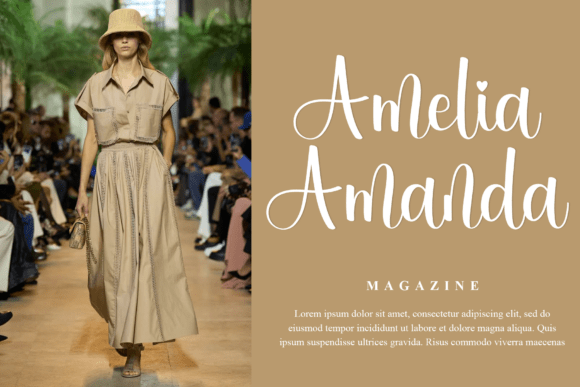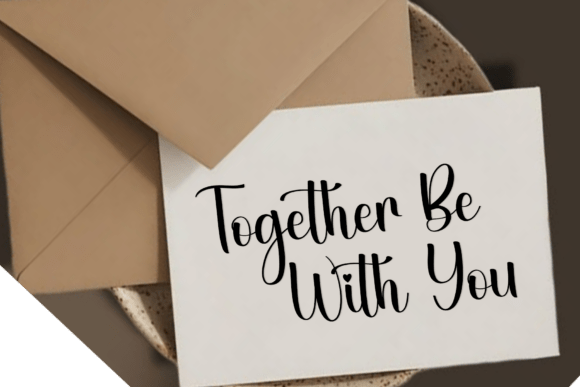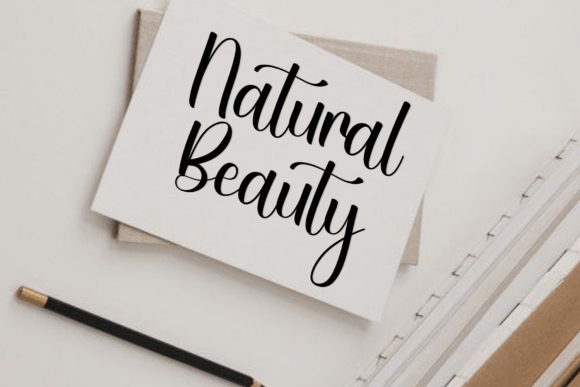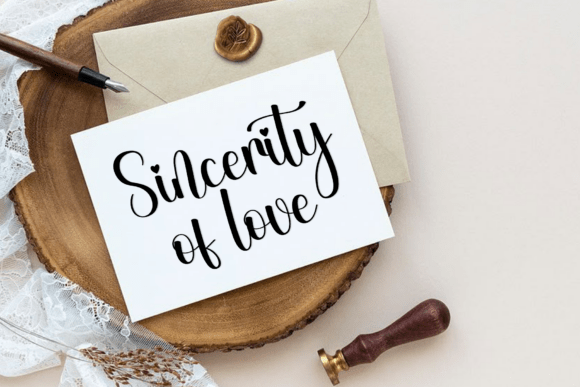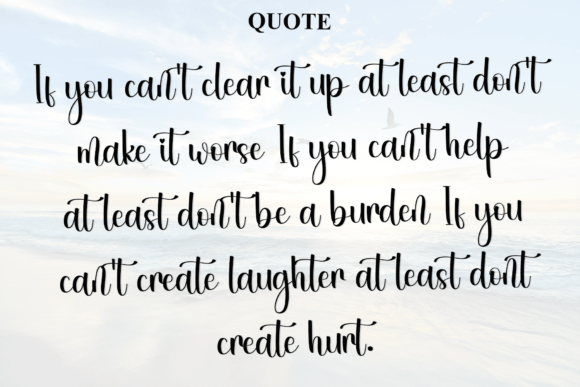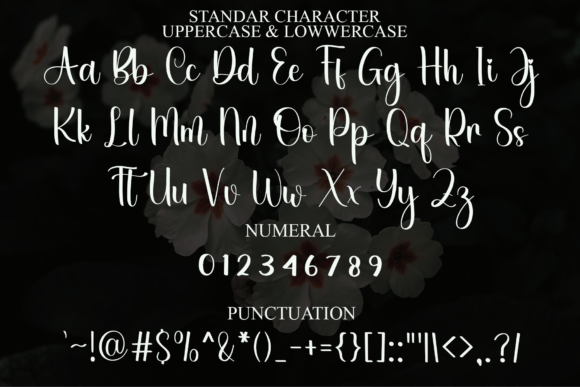
Introducing Christmas Font: The Perfect Addition to Your Design Projects
Are you looking for a font that captures the essence of the holiday season? Look no further than Christmas Font, a beautiful and eye-catching typeface designed with a soft, unique touch. This distinctive font is perfect for designers, crafters, and creatives who want to add a touch of festive flair to their projects.
A Unique and Versatile Font
Christmas Font is designed with a special character that sets it apart from other fonts. Its soft, rounded strokes give it a warm and inviting feel, making it perfect for a wide range of design projects. Whether you’re creating holiday cards, decorations, or gifts, this font is sure to make your designs stand out.
One of the best things about Christmas Font is its versatility. With various characters to choose from, you can use it to create a wide range of designs, from simple and elegant to complex and playful. The font is also highly legible, making it perfect for use in titles, headings, and body text.
Christmas Font is a dream come true for designers and crafters. Whether you’re creating digital designs or handmade crafts, this font is sure to inspire your creativity. Use it to create:
- Decorative signs and banners
- Gift tags and wrapping paper
Why Choose Christmas Font?
So why choose Christmas Font for your design projects? Here are just a few reasons:
- Unique and eye-catching design: Christmas Font has a distinctive look that will make your designs stand out from the crowd.
- Versatile and flexible: Use the font in a wide range of design projects, from simple to complex.
- Highly legible: The font is easy to read, even at small sizes.
Christmas Font is a beautiful and versatile typeface that’s perfect for designers, crafters, and creatives. With its unique and eye-catching design, high legibility, and compatibility with a wide range of applications, it’s the perfect addition to your design projects. Whether you’re creating holiday cards, decorations, or gifts, Christmas Font is sure to make your designs shine. So why wait? Download Christmas Font today and start creating your own festive designs!
Key Features of Christmas Font
- Soft, unique touch
- Distinctive strokes
- Meaningful and versatile
- Various characters
- Perfect for design projects, crafts, and creative works